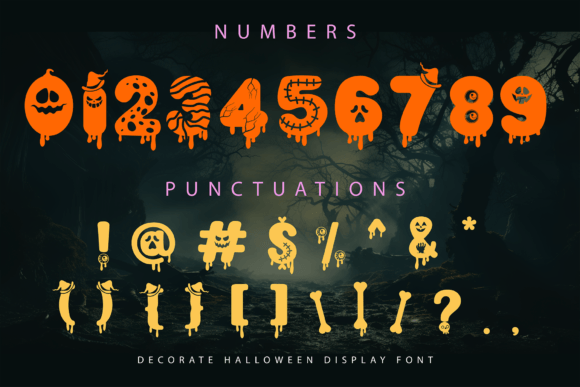
Cute Halloween Ghost Font
Cute Halloween Ghost font is a spooky, stylish, and playful decorated display font, perfect for crafting, branding and decorating your any Halloween project.This display font is an ideal choice for creating chilling and eye-catching designs for Halloween-themed greeting cards, retro designs, book covers, stationery, magazines, headlines, procreates, book covers, t-shirts, mugs, apparel, embroidery, crafts, and other festive applications. typeface features jagged, uneven strokes reminiscent of scratchy brushwork, giving it a hand-crafted, slightly chaotic feel.